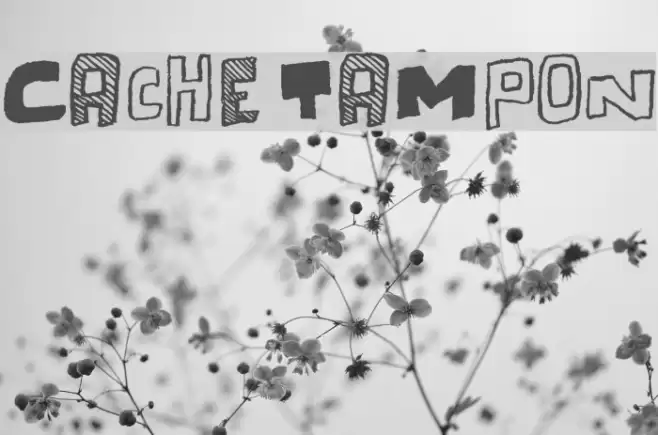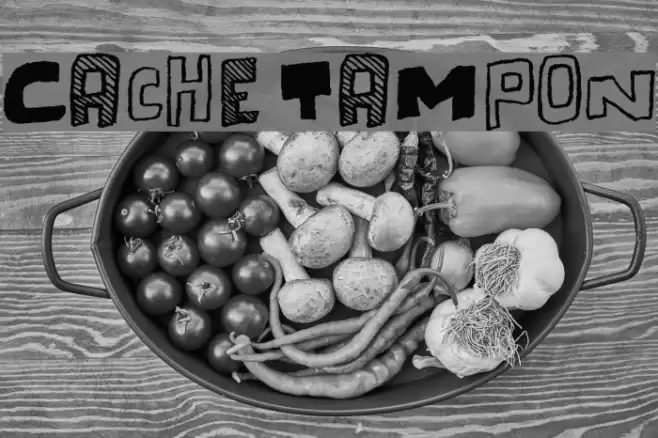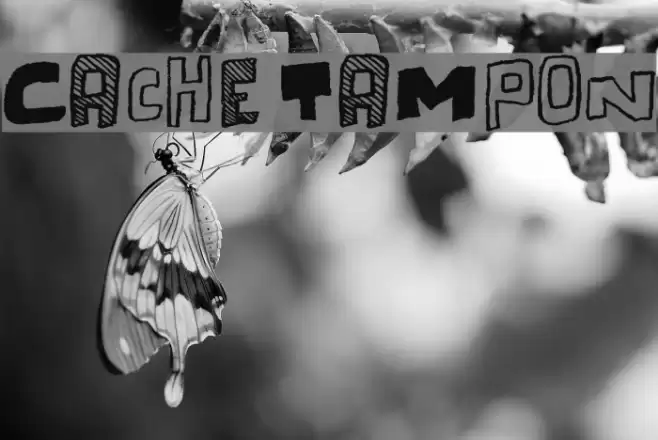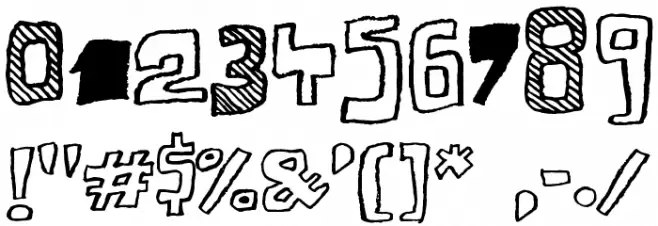
Cache Tampon Font
Cache Tampon Description
This font features a playful and bold design, characterized by its hand-drawn, sketch-like appearance. Each letter is uniquely crafted with varying thicknesses and irregular edges, giving it a dynamic and energetic feel. The uppercase and lowercase letters maintain a consistent style, with some letters filled in solidly while others are outlined. Numbers and special characters follow the same whimsical style, adding to the font's overall charm. This font is perfect for projects that require a fun and informal touch, such as children's books, comic strips, or creative posters.
A playful, hand-drawn font with a bold, sketch-like appearance from Uncategorized fonts.
- Proposed Projects: Ideal for children's books, comic strips, creative posters, and informal designs.
- Overall Style: Playful, Energetic, Informal
- Use Case: Headlines, Posters, Creative Designs